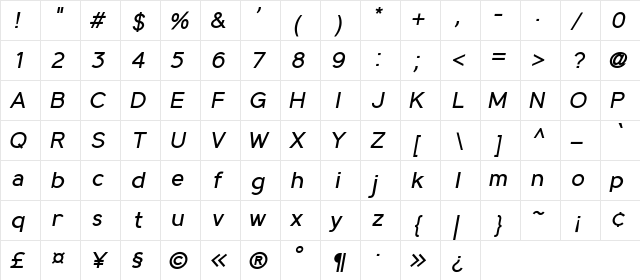
MadeynSans Regular Italic
Design Context for MadeynSans Typeface
MadeynSans offers clean, dependable letterforms without strong stylistic allegiance, making it a practical choice for designers who need flexibility. The dynamic lean of this cut emphasises speed and emphasis in any layout.
Pro Tip: Try MadeynSans for annotation and caption copy alongside an upright companion — the contrast in angle creates a dynamic but ordered typographic system.